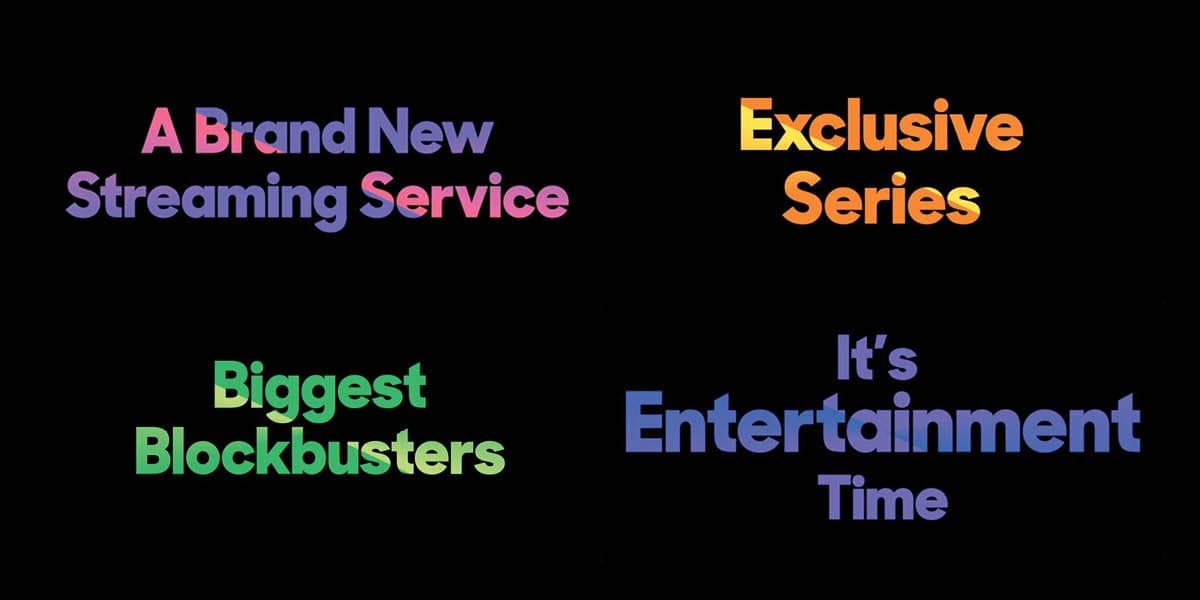
Sharp Sans for SkyShowtime
Throughout 2022, Sharp Type worked with SkyShowtime creative director Arjen Nordeman to develop a custom package of Sharp Sans for the new streaming platform. With our regular collaborator Marc Rouault, we designed a prototype Cyrillic extension of our flagship geometric sans-serif to meet the branding and messaging needs of SkyShowtime's European market, which require both Latin and Cyrillic localizations.
SkyShowtime completed its rollout earlier this year, which began in the Nordic countries in late 2022, before continuing with Central Europe -- which includes Albania, Bulgaria, Czechia, Hungary, Kosovo, North Macedonia, Poland, Romania, and Slovakia -- and finished with Spain and Andorra.
SkyShowtime combines the signature logotypes of Sky TV and Showtime, and Sharp Sans acts as both a complementary display face and supporting font to complete the visual identity of the brand. Dubbed Sharp Sans SST, this project required a lot of collaborative back-and-forth with the team at SkyShowtime and their affiliates at NBC/Peacock to ensure that the custom font family works holistically throughout the services branding, messaging, and development code.
The world of streaming has grown increasingly diverse in recent years, not only in terms of content, but in the variety of platforms. As studios continue to merge and acquire one another, new platforms have been created to support and work within the complex matrices of regional markets and licensing. These platforms are often named in a way that reflects the merged studios, and the chimeric nature of the resulting brand names often results in carefully combined pre-existing logotypes to retain familiarity for the audience and brand consistency. In these cases, the final brand identity requires a supporting typeface that can shine in its own right without clashing with any pre-existing proprietary logomarks or type.
Sharp Sans was designed for ultimate utility, and it looks great in any context. Beneath the simple and strong forms of our workhorse geometric sans-serif is a wealth of fastidious design considerations. Simplicity is often the most difficult quality to achieve, and Sharp Sans’ easy adaptability further reinforces this trait.
For the general public in these regions, Sharp Sans SST will be seen primarily in title and headline uses throughout the user experience. However, we also provided monospaced type for the SkyShowtime team to use on the development backend. Sharp Sans is everywhere in the rollout for SkyShowtime, and it's a comprehensive proof of concept. The typeface’s understated warmth unifies the platform’s diverse content and branding with quiet confidence.